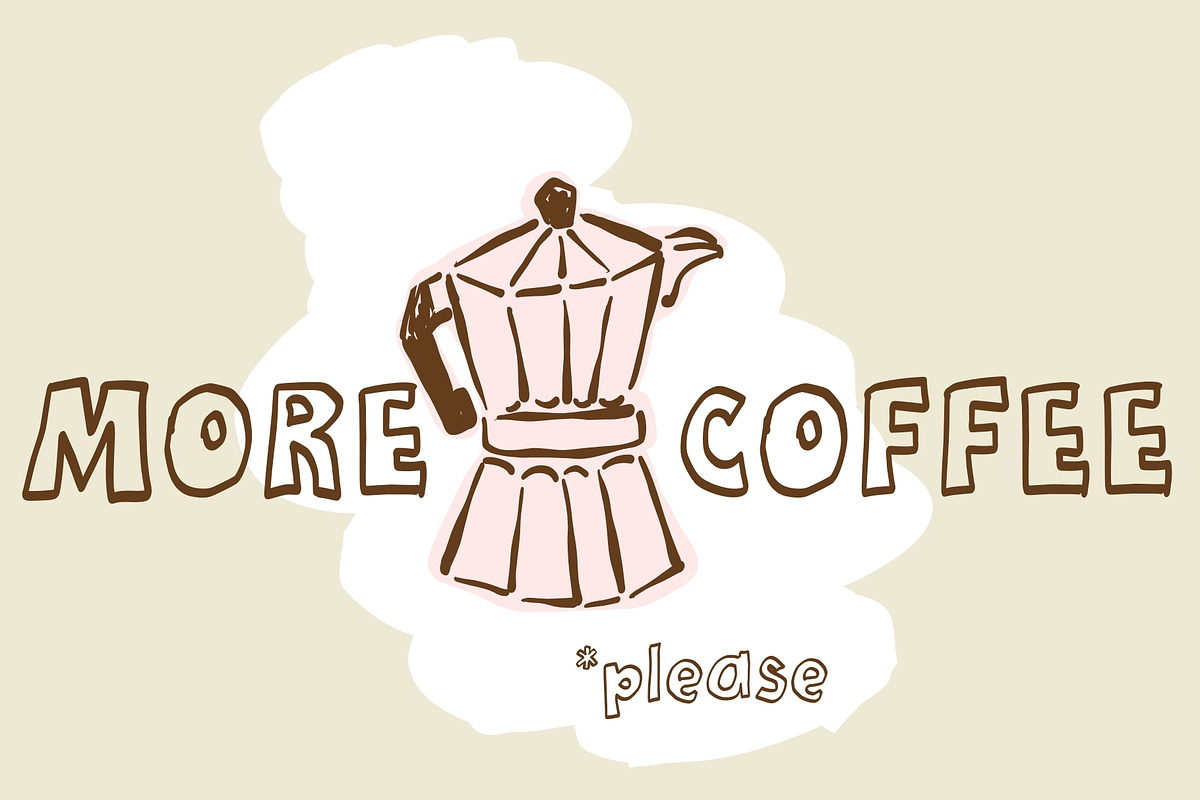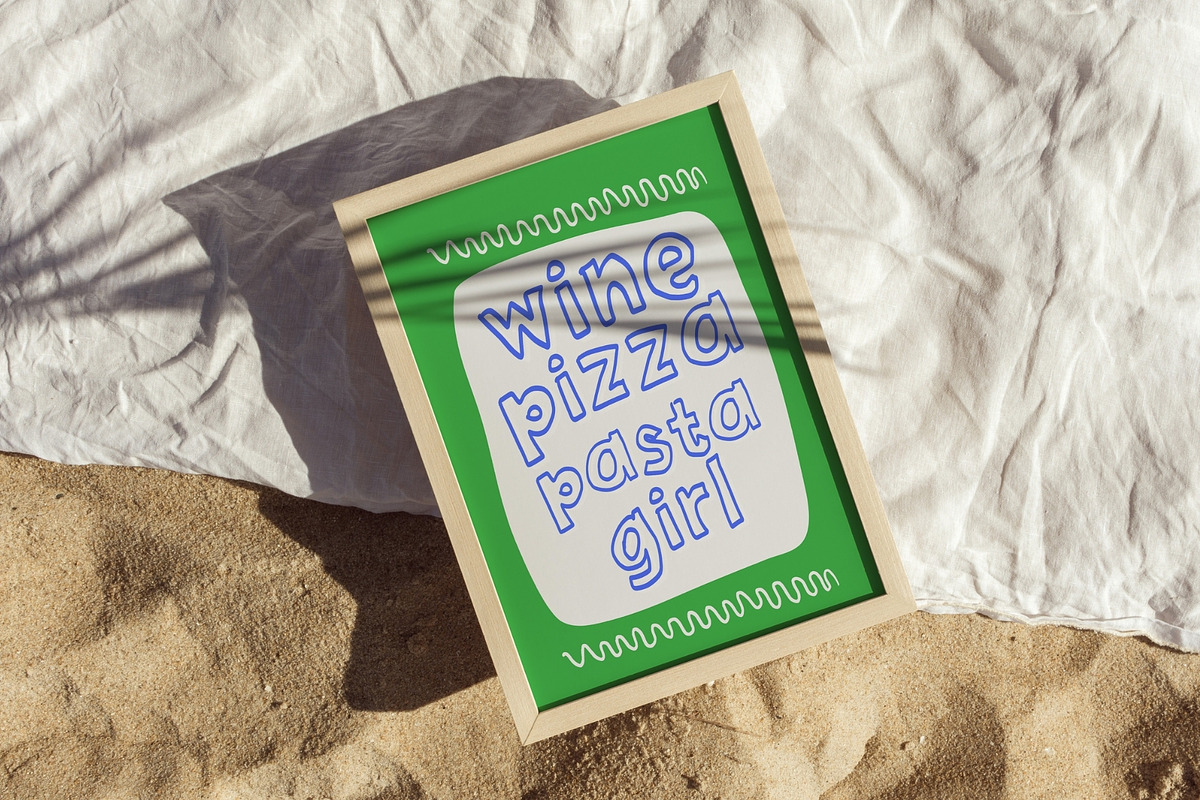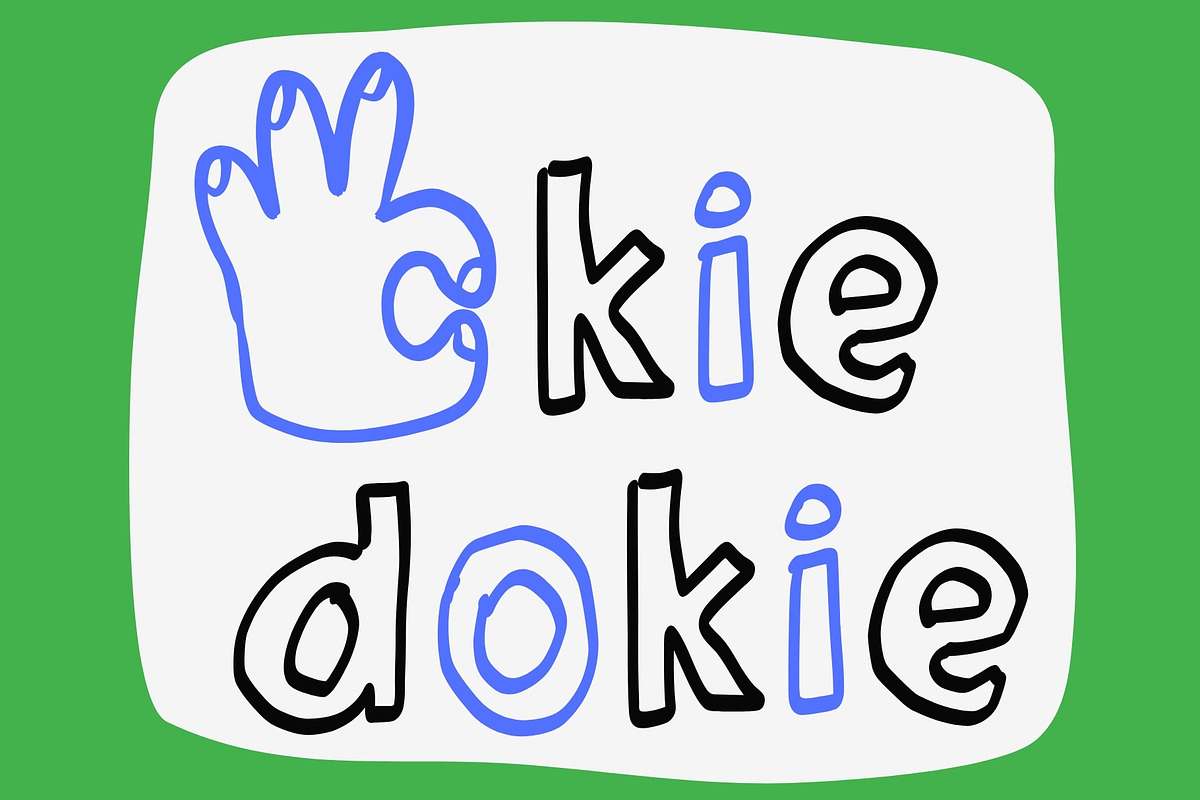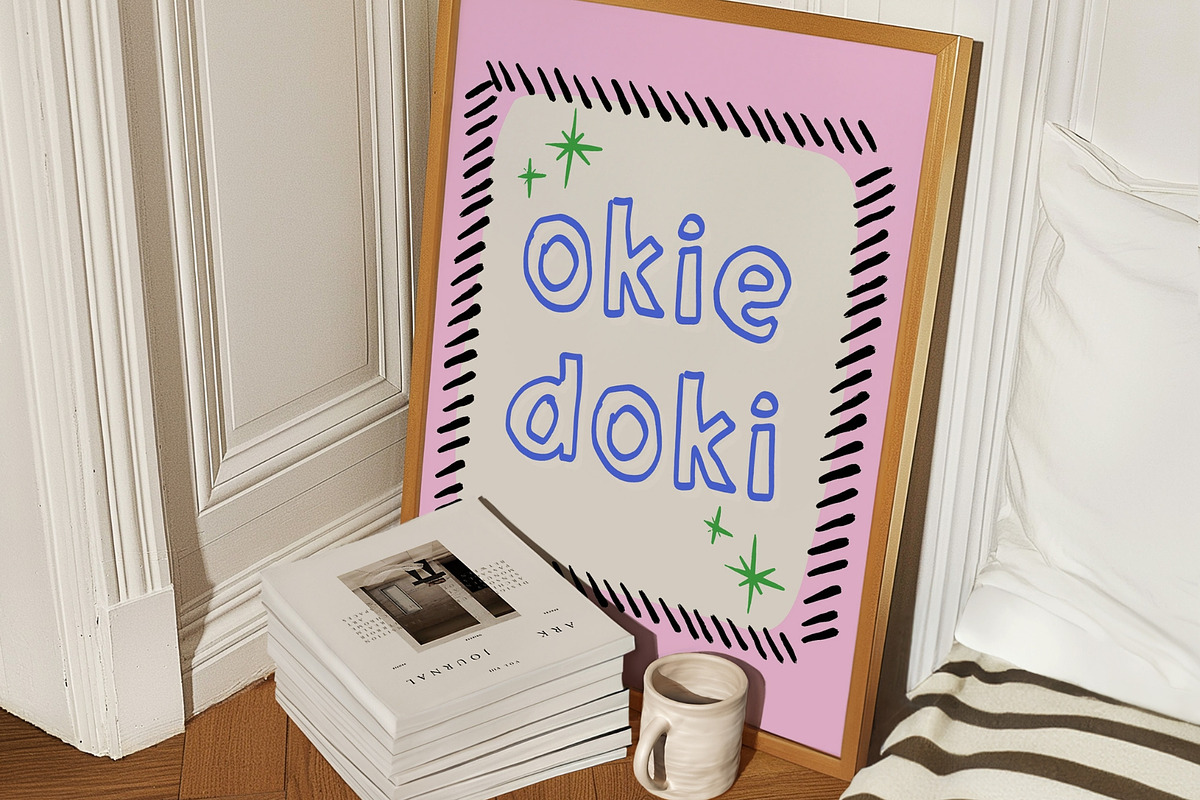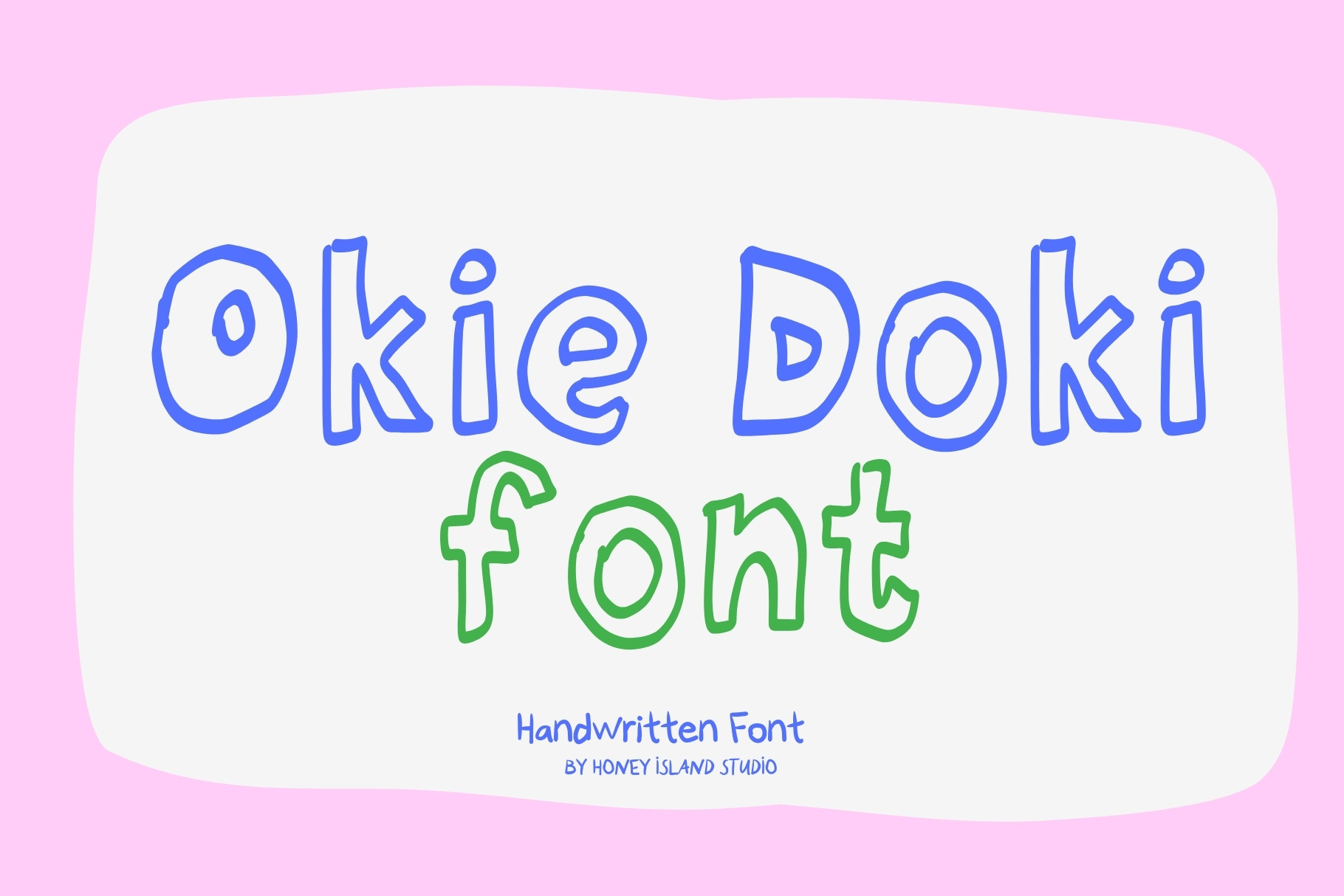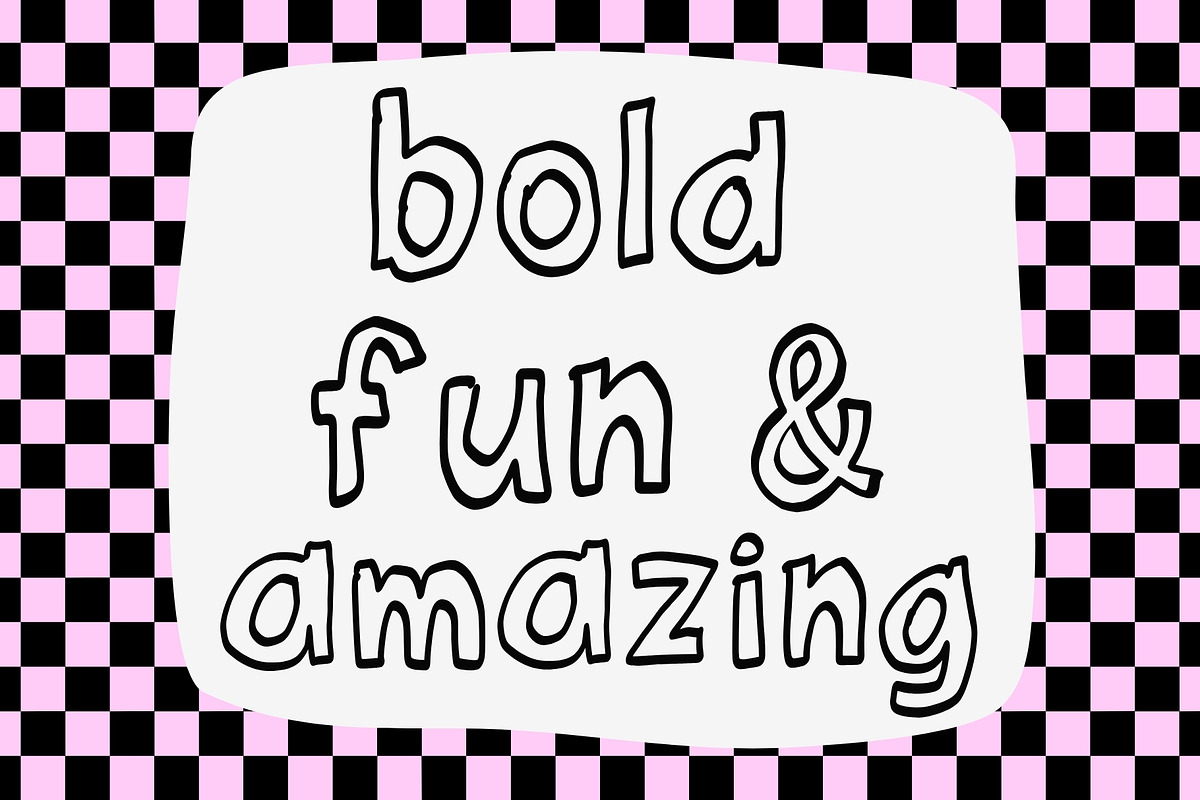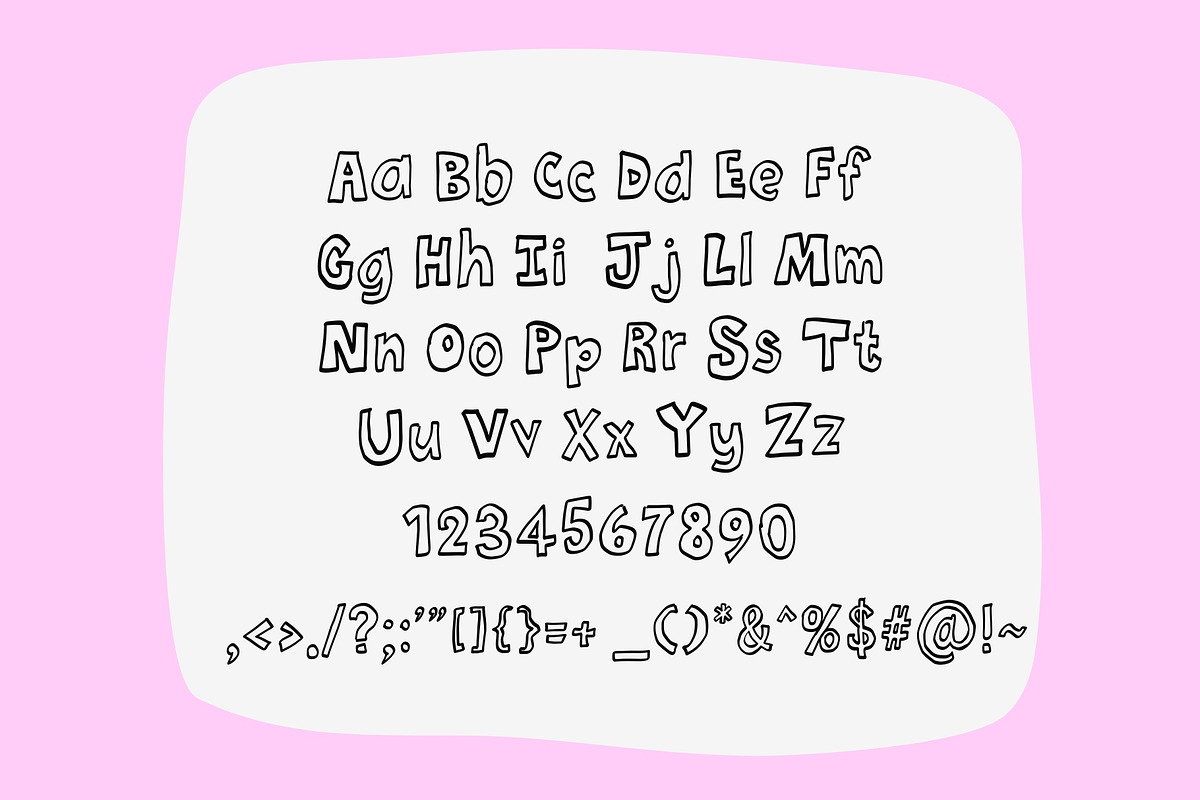
Okie Doki Handwritten Font
Unleash your creativity with the Okie Doki Handwritten Font!
- Uppercase, lowecase, numbers, punctuation & symbols
Elevate your designs with the delightful character of Okie Doki Handwritten Font, and let your creativity soar!